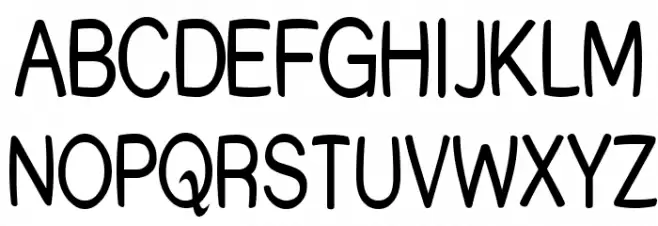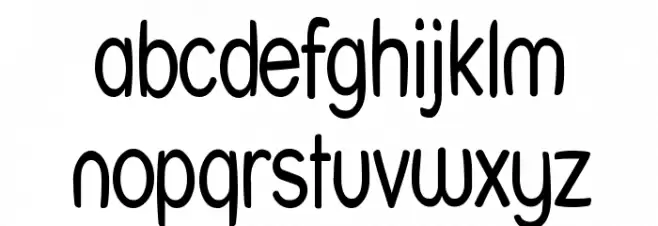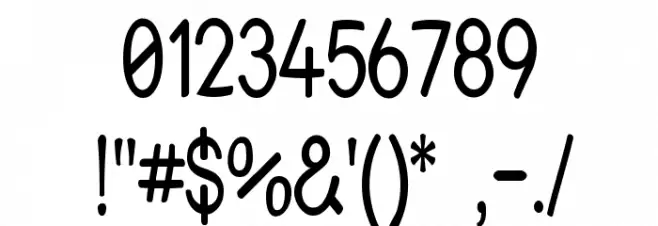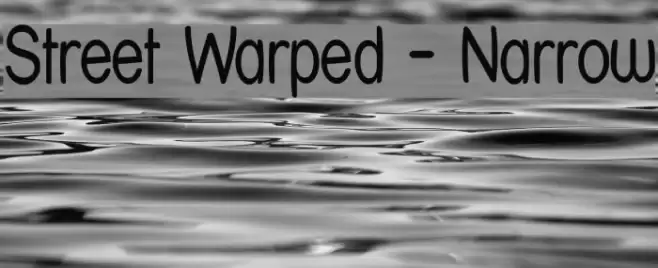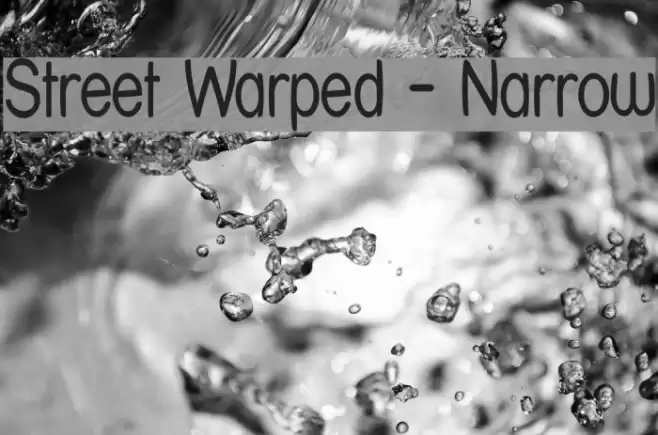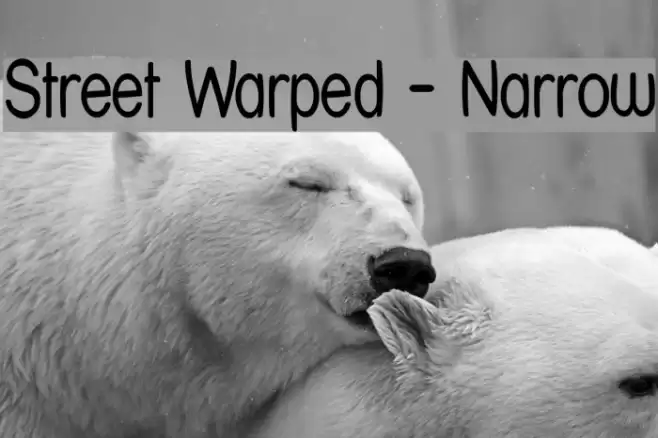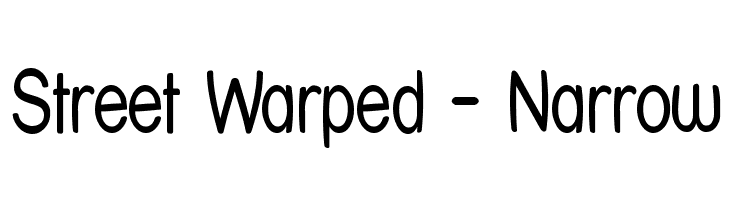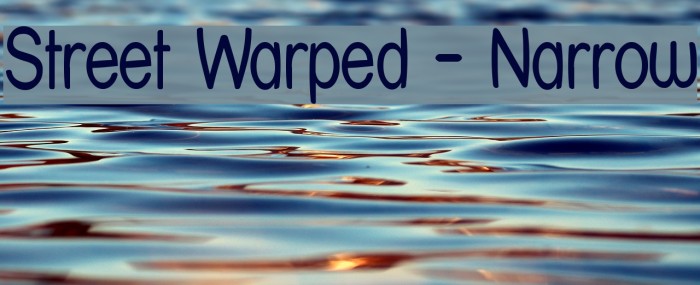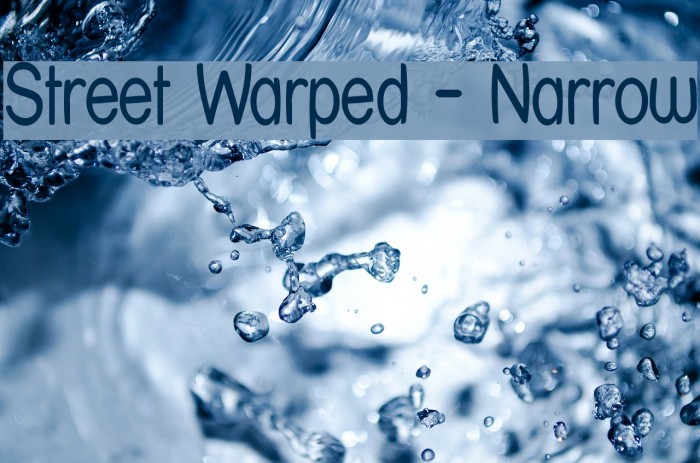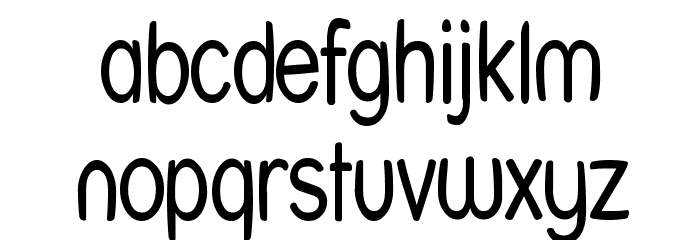
Street Warped - Narrow
This font features a playful and slightly warped aesthetic, characterized by its narrow and elongated letterforms. The strokes are consistent in width, giving it a uniform appearance, while the slight curvature and irregularities add a whimsical touch. The characters are well-spaced, ensuring readability despite the unique style. The font includes a full set of uppercase and lowercase letters, numbers, and a variety of special characters, making it versatile for different design needs. Its quirky nature makes it suitable for creative projects that require a fun and informal vibe.
A playful, narrow font with a slightly warped and whimsical style.
- Proposed Projects: Ideal for children's books, playful branding, creative posters, and casual invitations.
- Width: Condensed
- Overall Style: Playful, Quirky
- Use Case: Headlines, Logos, Posters